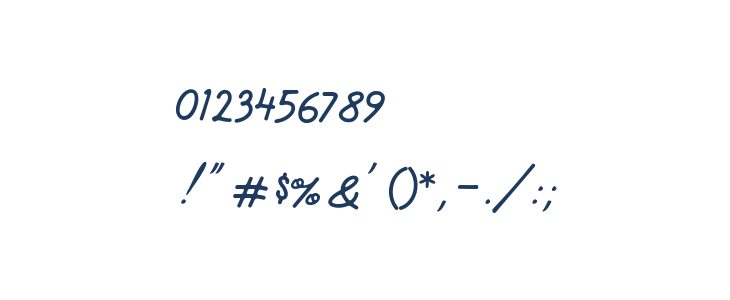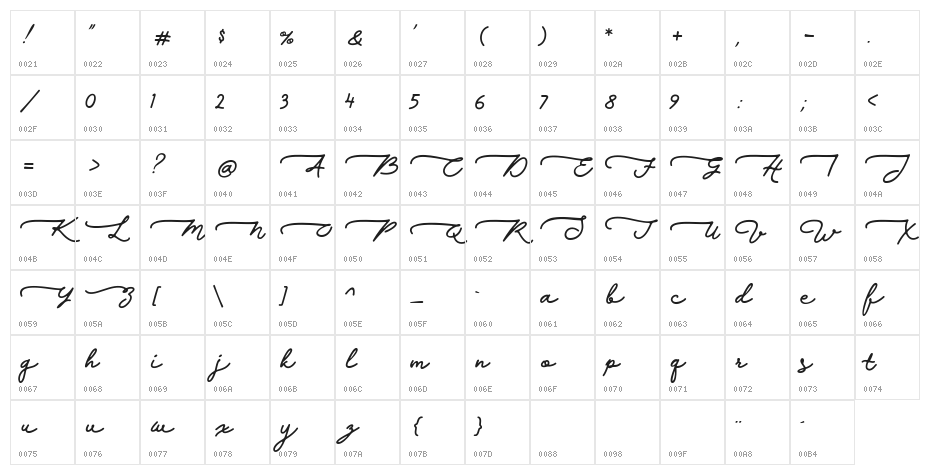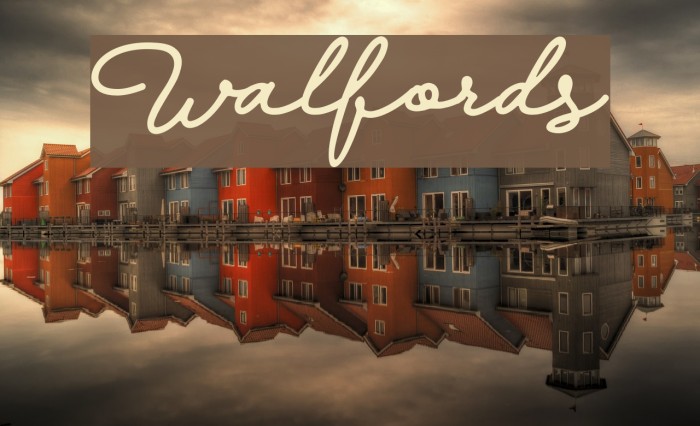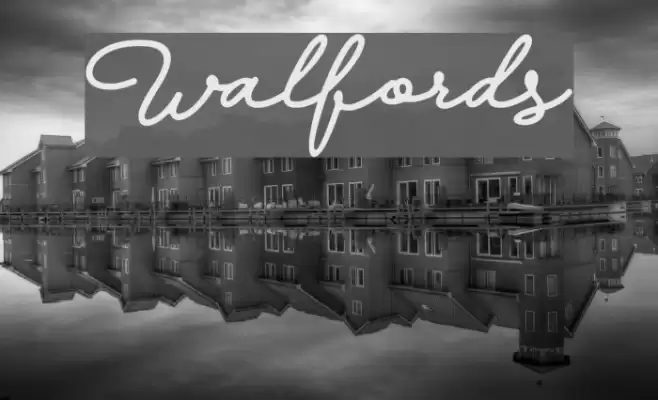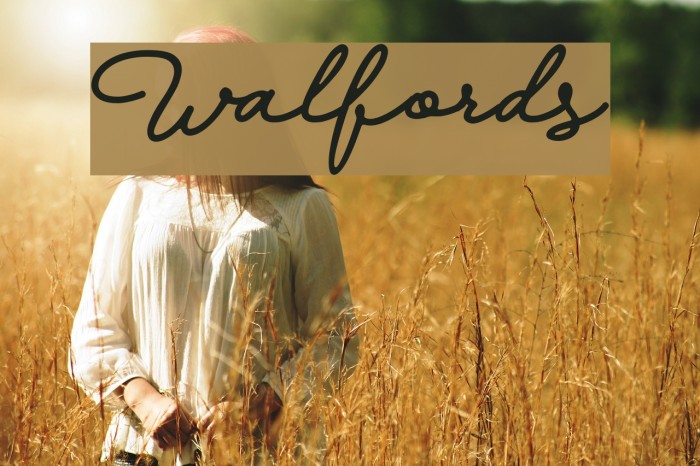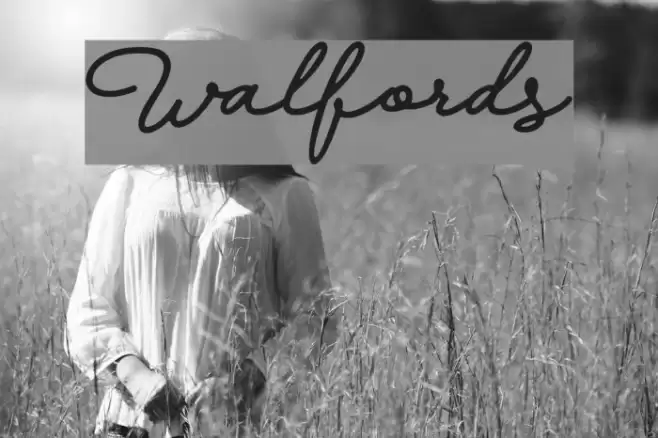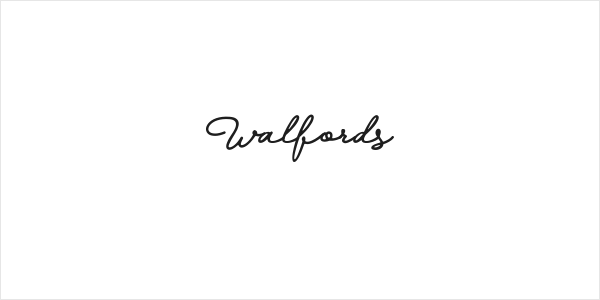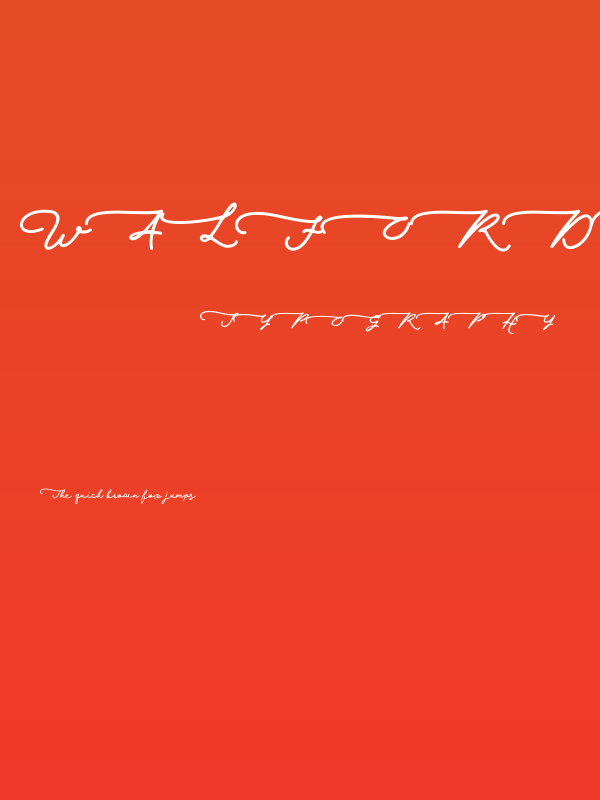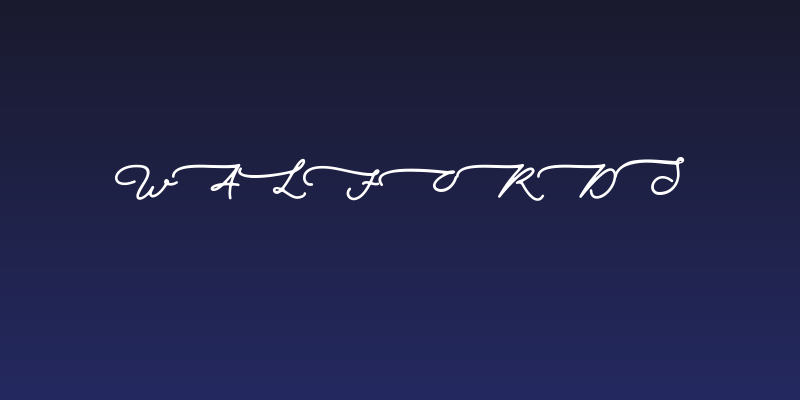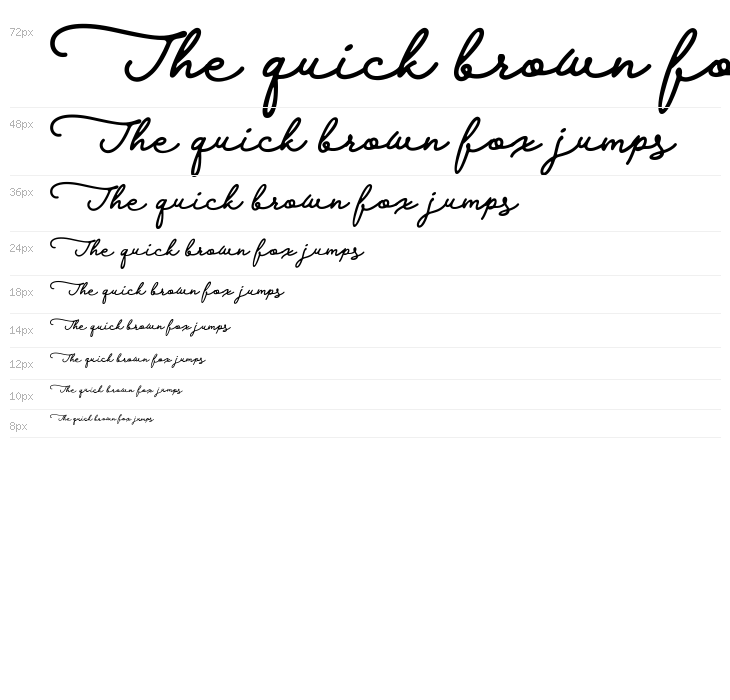
Walfords Font
Walfords Description
This font exhibits a flowing, cursive style that mimics elegant handwriting. The uppercase letters are connected with smooth, sweeping lines, while the lowercase letters maintain a consistent, fluid motion. The numerals are clear and easy to read, complementing the overall script style. Special characters are integrated seamlessly, maintaining the font's cohesive look. The strokes are moderately thick, providing a balanced contrast that enhances readability without sacrificing the decorative appeal. This font is ideal for projects that require a personal touch, such as invitations, greeting cards, or branding materials that aim to convey sophistication and warmth.
| Use Case | Headlines, Invitations, Personal Branding |
| Proposed Projects | Ideal for wedding invitations, personal branding, greeting cards, and elegant stationery. |